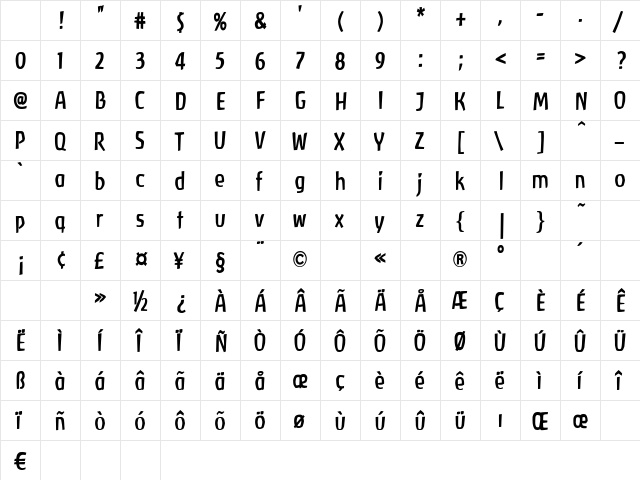
Complete Baar Antropos Engschrift Regular glyph index. Displaying only characters natively supported by Baar Antropos Engschrift Regular font.
Baar Antropos Engschrift is a composed and adaptable typeface that performs quietly and consistently across a wide range of design contexts.